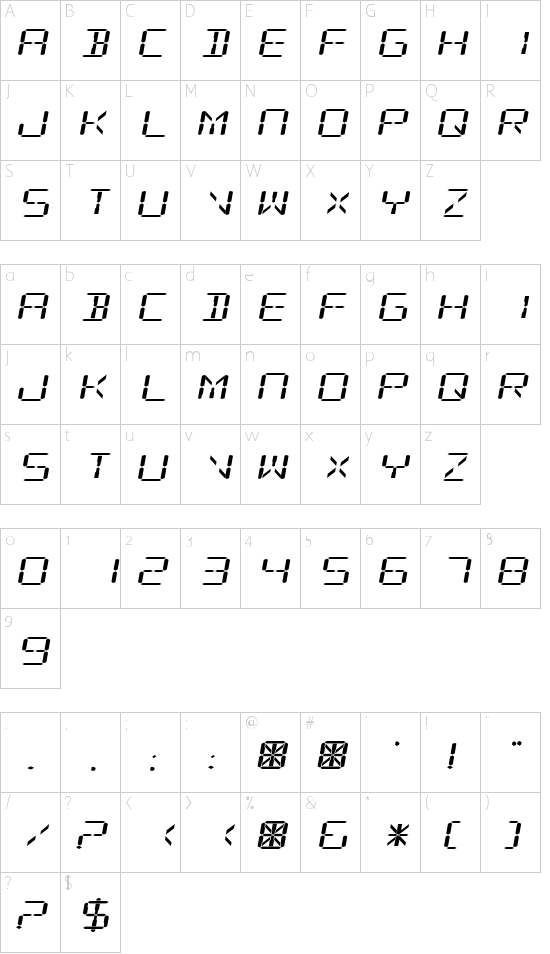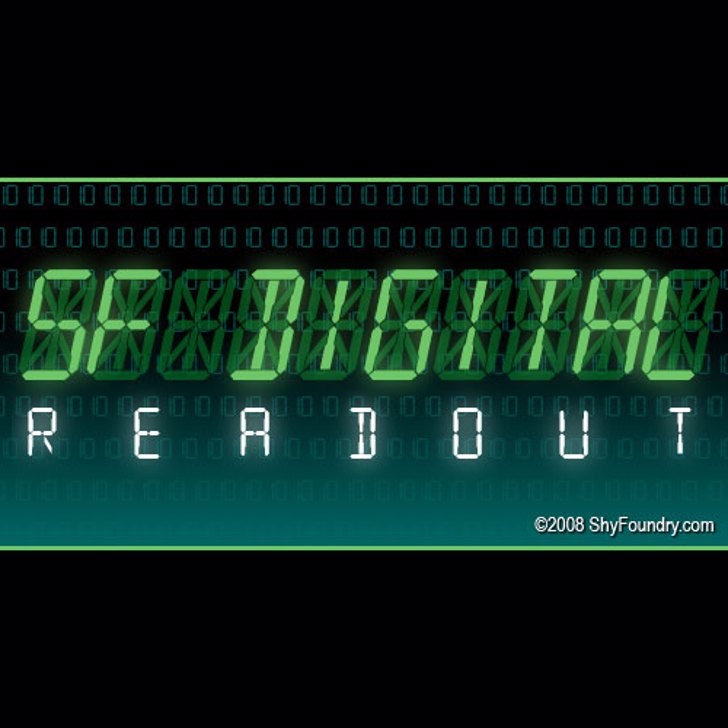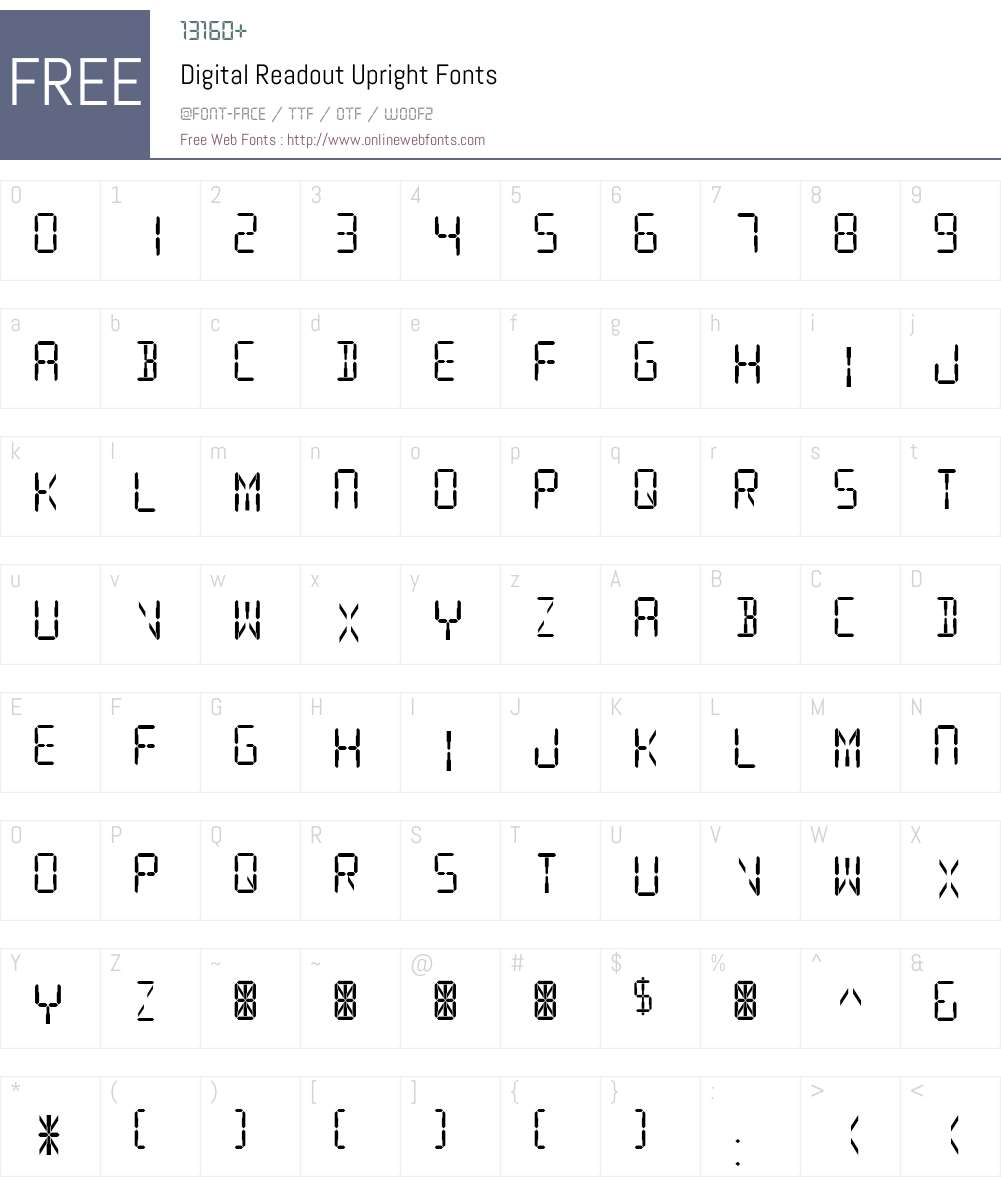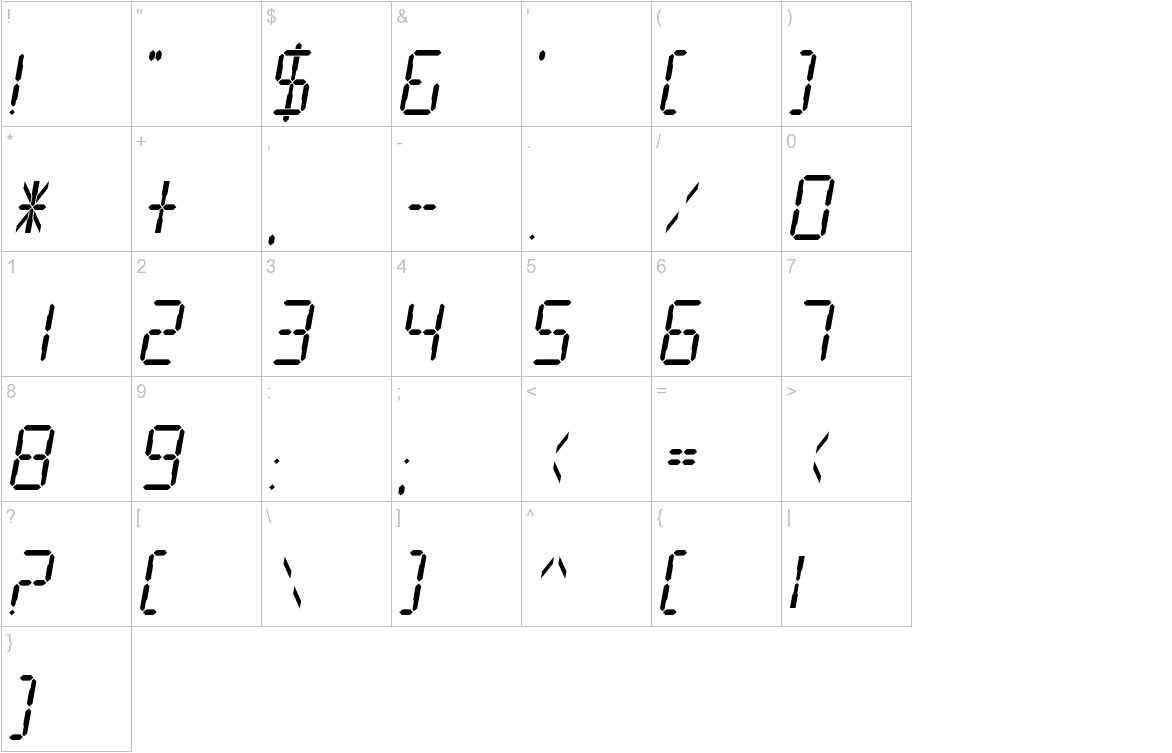
Digital Readout Upright Font . ️ customize your own preview.    — the digital readout upright font contains 105 beautifully designed characters.  download digital readout upright for free, view sample text, rating and more on fontsgeek.com  the digital readout upright stands tall and proud, with its characters designed to mimic the digital displays that once dazzled.  digital readout upright font digital readout family consisting of 8 fonts.  download digital readout upright font from free cdn or use it on your website as webfont.  download digital readout upright font free!  download sf digital readout font family · free for personal use · the timer on the microwave that zapped my frozen burrito inspired me to create this led.